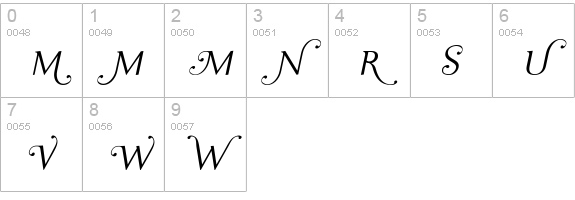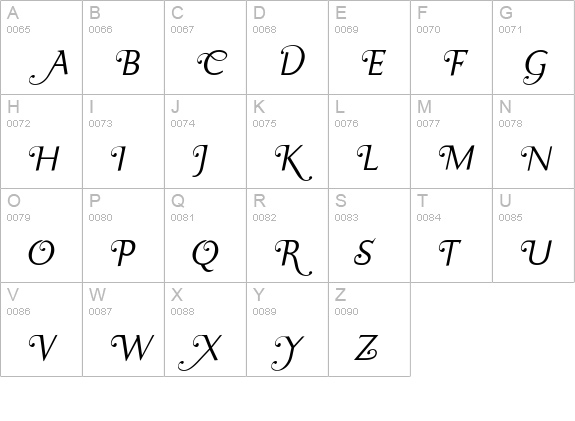
Ela Swashes Light Italic PDF Font Details
Ela Swashes Light Italic PDF is a refined, elegant, italic variant in the Ela typeface family \xE2\x80\x94 well suited to elegant body text, refined sub-headings, and luxury branding.
Ela Swashes Light Italic is a delicate and elegant font that effortlessly combines modern sophistication with a touch of whimsy. Its graceful swashes and flowing curves add a unique charm to any design project. The light weight and italic style give it a soft and airy appearance, perfect for conveying a sense of grace and refinement. This beautiful font is not only visually stunning but also incredibly versatile, making it suitable for a wide range of applications including branding, invitations, packaging, and more. Whether you're looking to add a romantic touch to your wedding invitations or a sophisticated flair to your logo design, Ela Swashes Light Italic is sure to impress. Best of all, this exquisite font is available for free download at FontsMarket.com. Take advantage of this fantastic offer and elevate your designs with the timeless beauty of Ela Swashes Light Italic today!